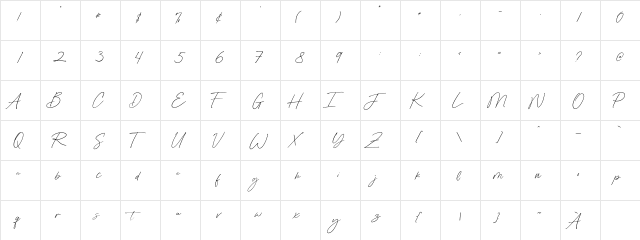
Amelia_Bloomer Regular
Design Context for Amelia_Bloomer Typeface
Amelia_Bloomer is a composed and adaptable typeface that performs quietly and consistently across a wide range of design contexts.